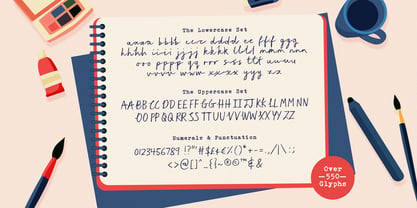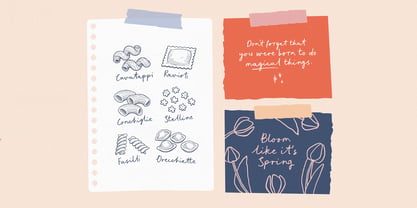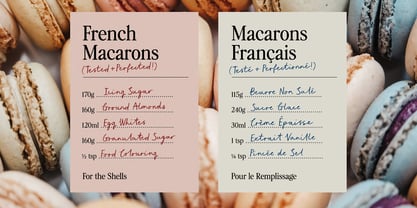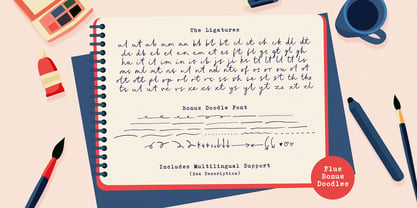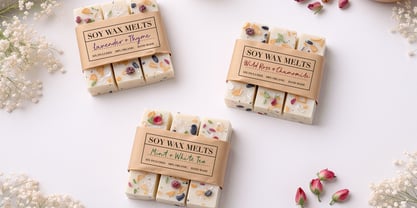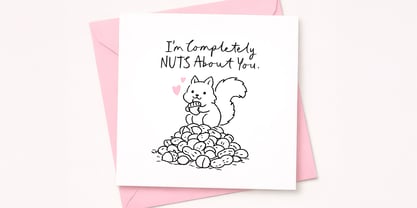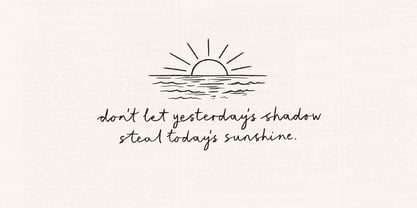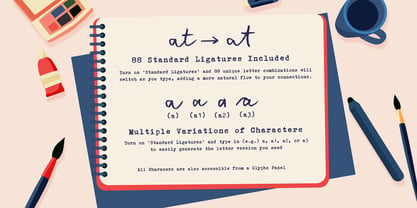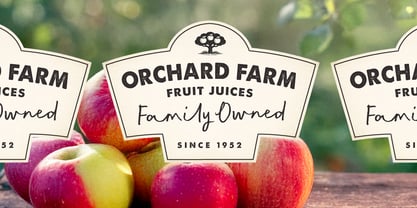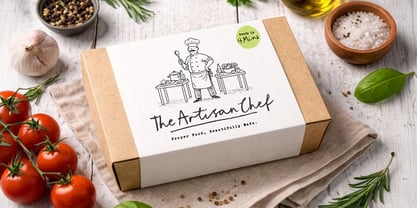
Sunday Sketches
par Set Sail Studios
La famille de polices Sunday Sketches a été conçue par Sam Parrett et publiée par Set Sail Studios. Sunday Sketches contient 2 styles et options de package familial. En savoir plus sur cette famille
Looking to add some extra charm and authenticity to your work? Look no further than the Sunday Sketches Handwritten Font! Hand drawn with real pencils on paper, the human-nature of this font shines through with every imperfect stroke, realistic rough texture, and organic letter connection. Don't let the quirky nature of this font fool you - it's a huge set of over 550 glyphs, with one font file containing multiple variations of each letter, as well as a bonus doodle font to add even more character to your designs. Accessing Alternate Characters • Simply turn on Standard Ligatures and type a number 1, 2, or 3 after your letter to generate each variation. For example, typing 'a', 'a1', 'a2', and 'a3' will give you 4 variations of the lowercase letter a (see images for further information). Accessing Ligatures • Simply turn on Standard Ligatures and ligatures will automatically generate when available (see images for full list of ligatures). Accessing Bonus Doodles • Simply install the 'Sunday Sketches Extras' font file, select this separate font from the font menu, and type any a-z or A-Z letter to generate 1 of 52 doodle characters including underlines, stars, hearts, arrows and frames. All letters are also available via the Glyphs panel. The font is also PUA encoded, meaning all letters can be pasted from Font Book (mac) or Character Map (windows) into non-compatible software. Language Support • English, French, Italian, Spanish, Portuguese, German, Swedish, Norwegian, Danish, Dutch, Finnish, Indonesian, Malay, Hungarian, Polish, Croatian, Turkish, Romanian, Czech, Latvian, Lithuanian, Slovak, Slovenian.